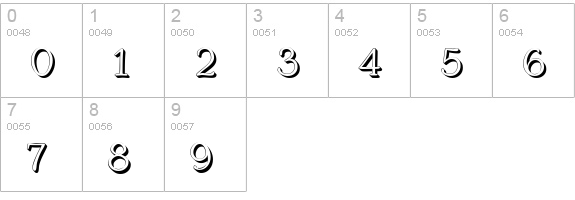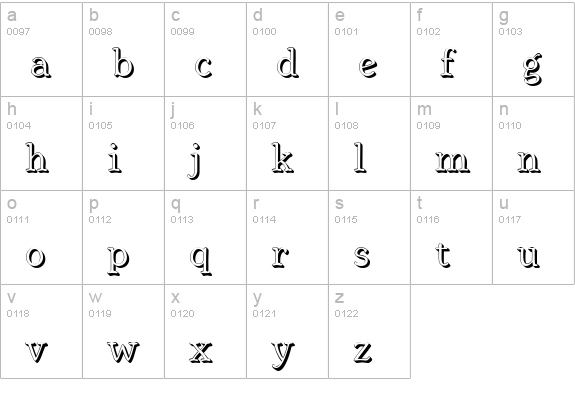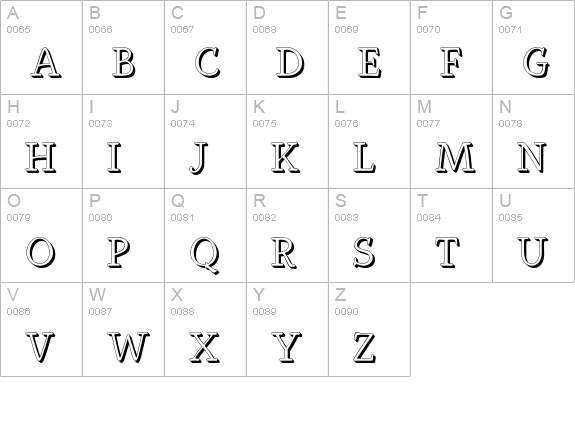
YoubeeShadow is a modern and stylish font that exudes elegance and sophistication. This unique typeface features sleek lines and a playful shadow effect that adds depth and dimension to any design project. Perfect for adding a touch of flair to invitations, posters, logos, and more, YoubeeShadow is sure to make a lasting impression. The best part? YoubeeShadow is available for free download at FontsMarket.com. This means you can easily access this stunning font to elevate your creations without breaking the bank. Don't miss out on the opportunity to enhance your designs with the beauty and versatility of YoubeeShadow font. Download it today and let your creativity shine!